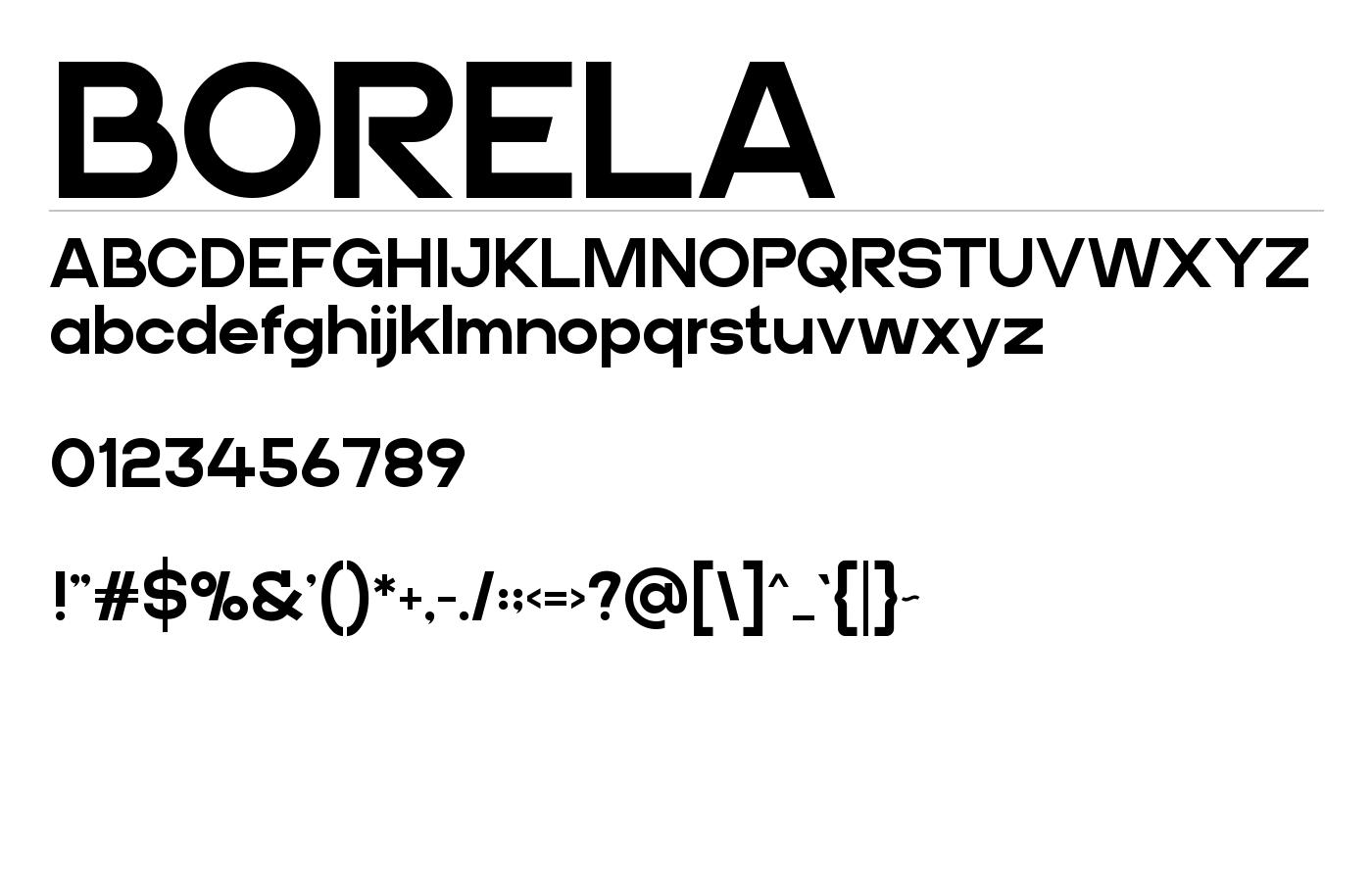
BORELA is a modern sans serif font with a bold weight and a clean, geometric design that feels strong and contemporary. Its slightly condensed letters, high x-height, and clear shapes make it highly readable and suitable for impactful headlines, branding, and editorial use where a confident, modern look is desired. This versatile typeface works well for brands aiming for a sleek, professional, yet approachable identity.
BORELA Font